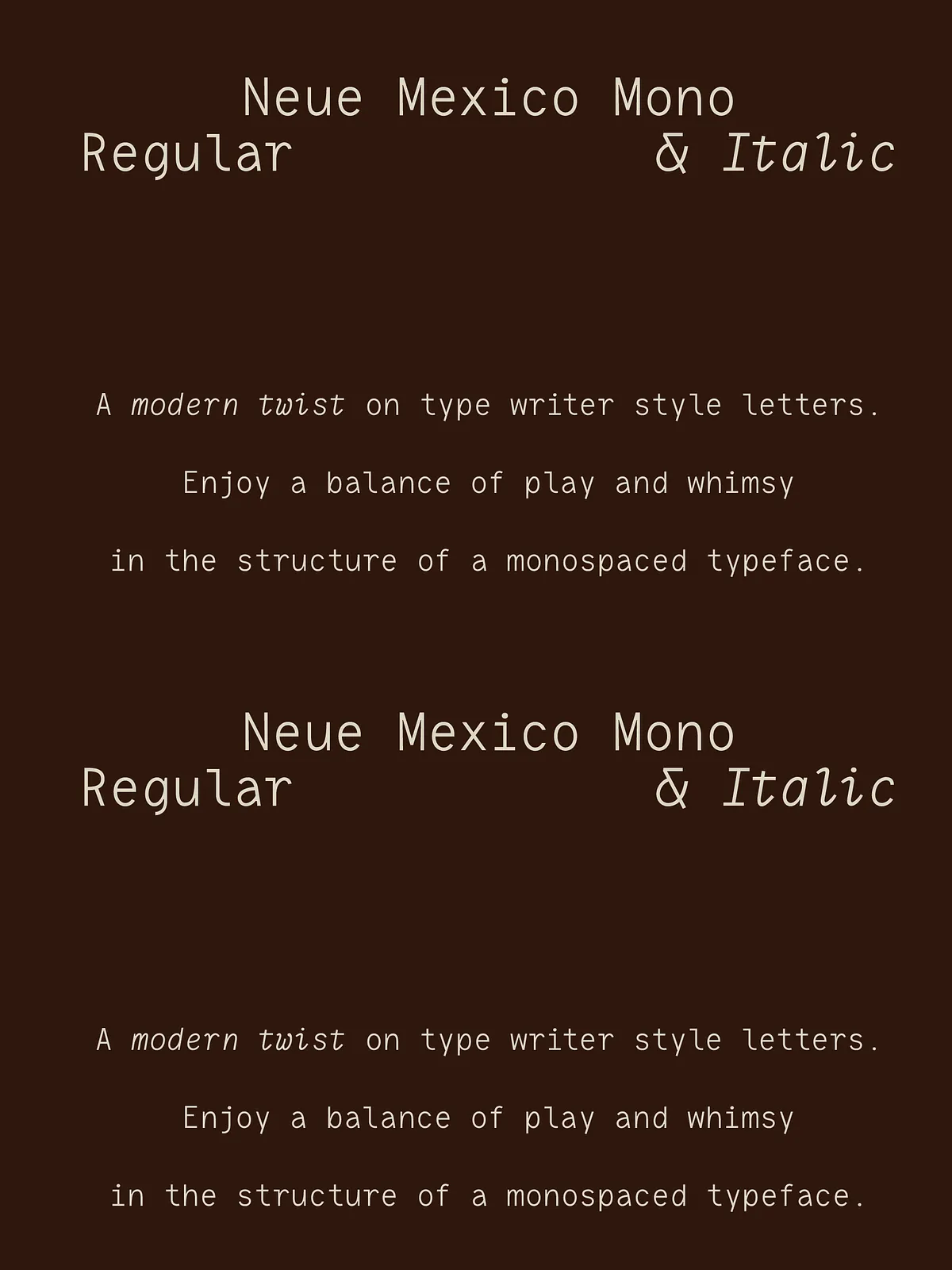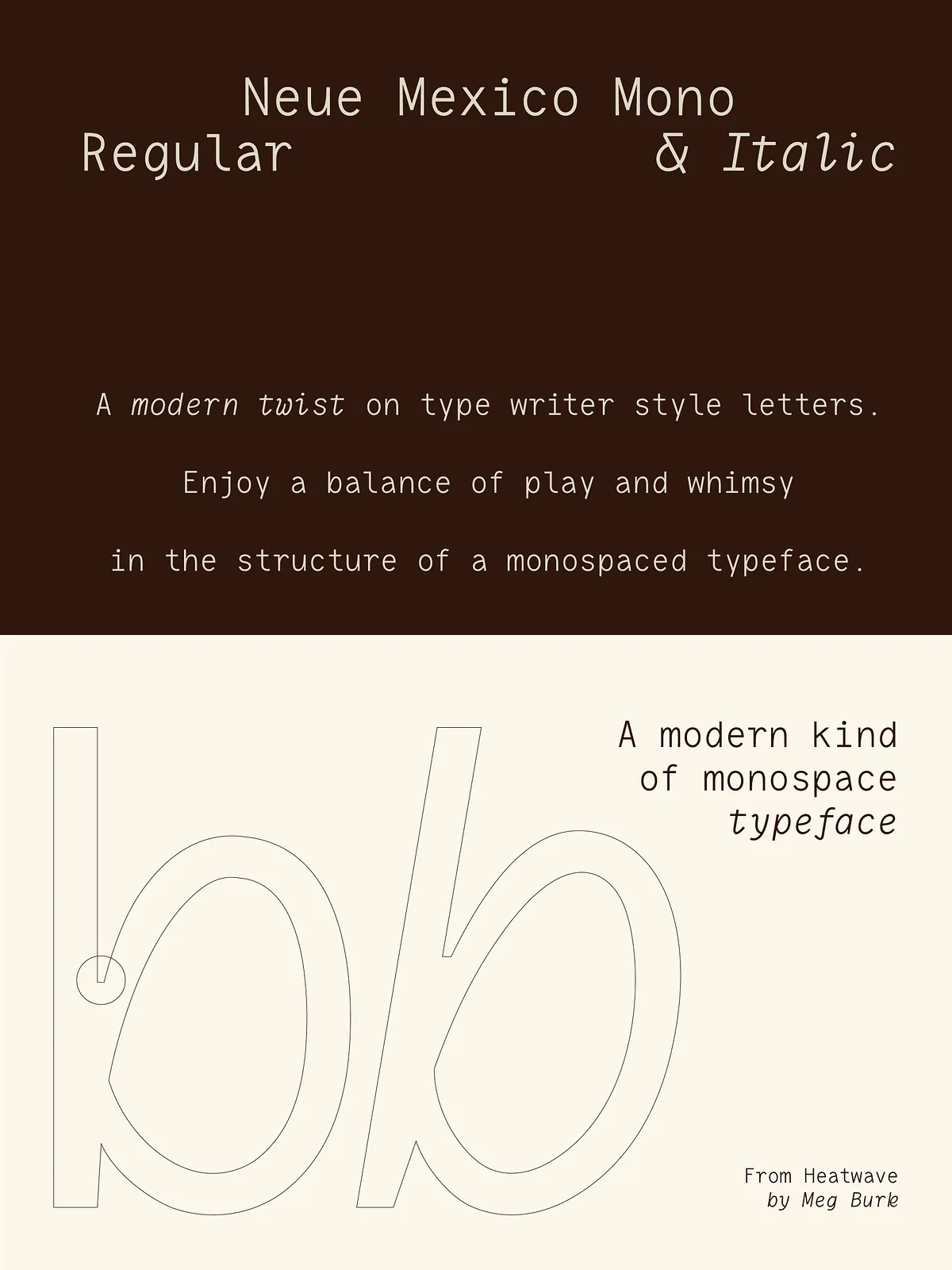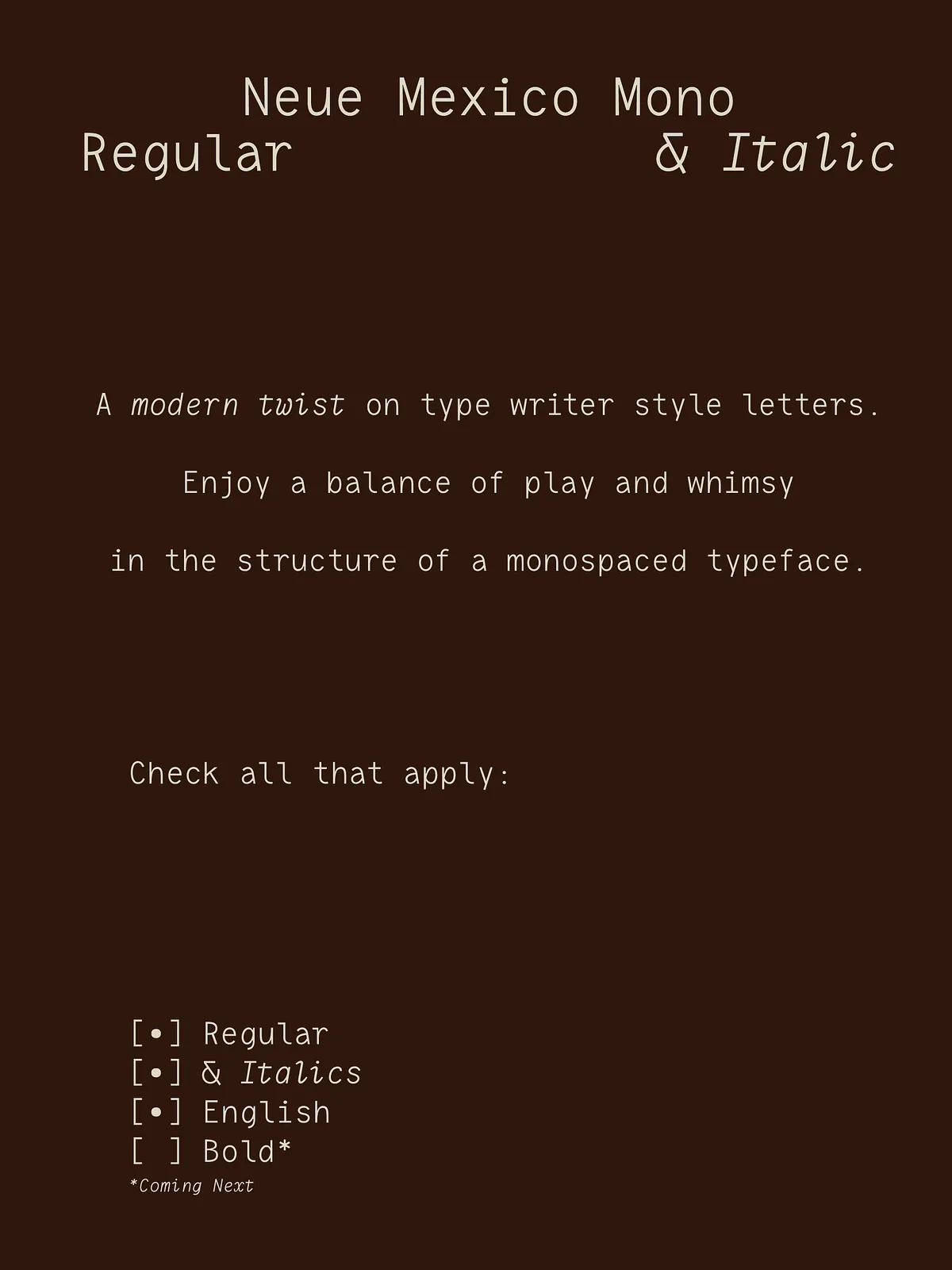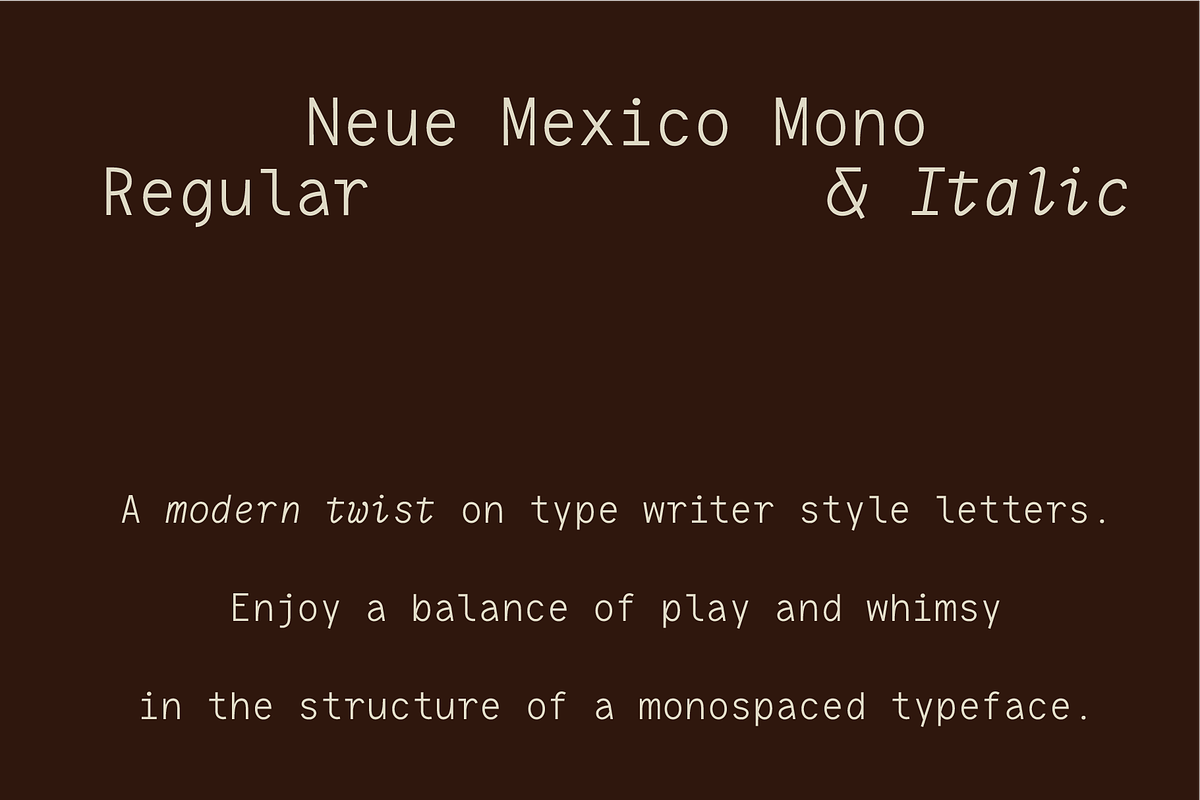
This monospace typeface was created to solve a specific design need: a structured, reliable monospaced face that doesn’t feel rigid or mechanical. Instead of strict austerity, the design injects a sense of life and personality. Between October 2025 and March 2026 the family took shape, refined to offer clarity at small sizes and character at display sizes. It delivers the dependable alignment expected from a monospaced font while introducing unexpected shapes and a lively italic that invite creative application.
Design Intent & Character
Balanced structure with playful details
The typeface prioritizes readable rhythm and consistent metrics, but it avoids the cold precision typical of many monospace faces. Designers will notice subtly quirky terminals, slightly offbeat curves, and purposeful counters that add warmth without sacrificing legibility. These active design choices make the font well suited for interfaces, code editors, documentation, and editorial projects that benefit from a human touch.
Distinctive italic
The italic style moves beyond a standard oblique. It introduces lively calligraphic gestures and modulated forms that remain readable while adding motion and emphasis. Use the italic for highlighted code comments, captions, pull quotes, or branding elements when you want to add personality without breaking alignment.
Features & Technical Details
Comprehensive glyph set and expansion plans
The current release focuses on solid core coverage with careful attention to punctuation, numerals, and typographic niceties. The studio plans additional styles and language support: Spanish and a Bold weight are the immediate next releases. The font will receive technical support updates and feature upgrades based on the studio’s schedule and availability.
Recommended Use Cases
Where this monospace excels
- Developer tools and code editors — readable glyphs and distinct character shapes reduce ambiguity between similar symbols.
- UI and product interfaces — predictable metrics simplify alignment of labels, data fields, and tables.
- Editorial design — the font’s personality adds character to captions, bylines, and data-rich layouts.
- Branding and motion — the italic and unexpected shapes support expressive logotypes, overlays, and animated text.
Practical Tips for Designers
Pairing and workflow
Pair this monospace with a neutral sans-serif for clean interfaces or with a humanist serif for editorial contrast. Use heavier weights to anchor headings in data-dense layouts and reserve the lively italic for emphasis and decorative moments. The font’s consistent metrics make it straightforward to incorporate into design systems and component libraries.
Planned Updates
What’s next
More styles are on the way: Spanish language support and a Bold weight are planned as the next releases. The studio welcomes requests for additional languages or features; popularity and demand will influence the upgrade timeline. Keep an eye on the product page for notifications about new releases and technical patches.